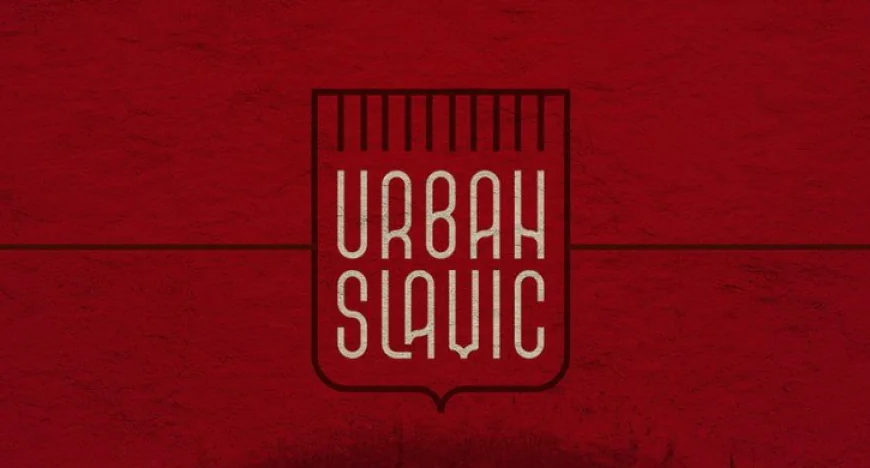
Urban Slavic is a display typeface influenced by traditional Slavonic lettering, blended with contemporary geometric minimalism. It excels at large sizes, making it ideal for posters, headlines, or short text.